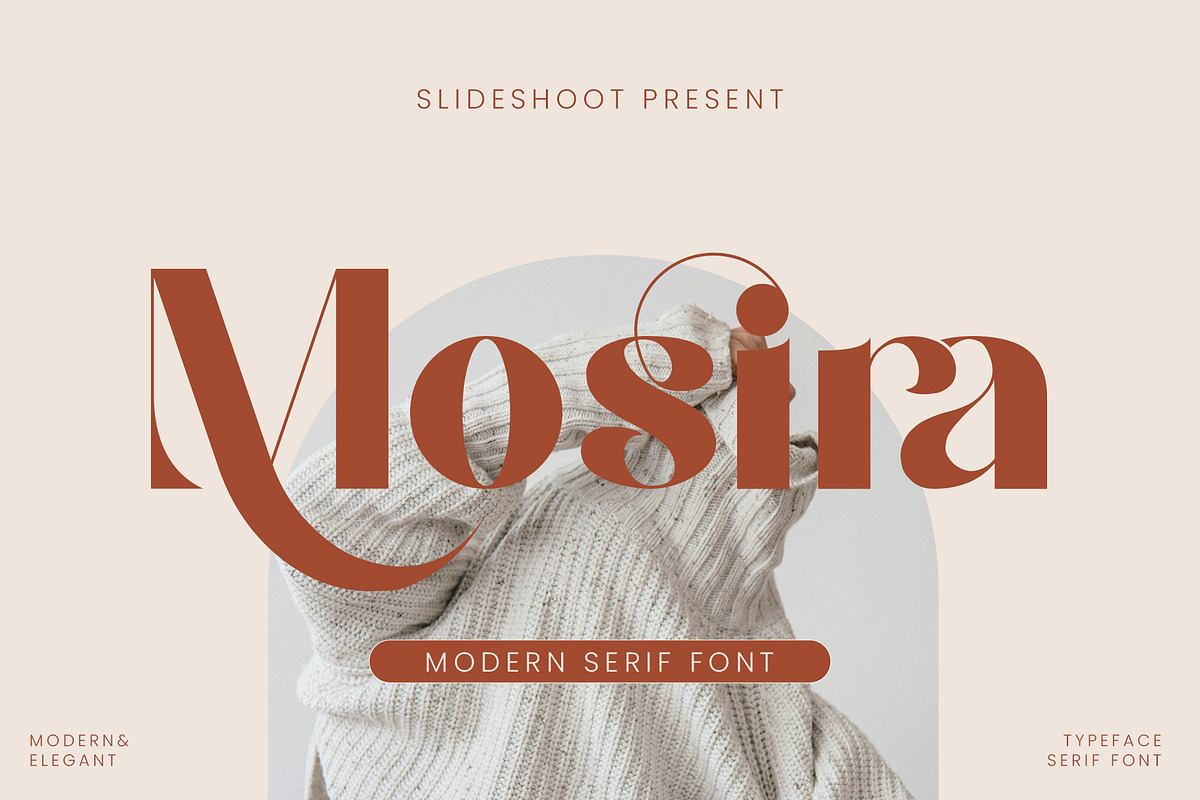
Embrace elegance and modernity with Mosira Serif Font Free Download — a refined typeface that blends classic serif tradition with contemporary sophistication. Perfect for branding, editorial layouts, product packaging, and luxury-themed designs, Mosira brings grace and structure to any creative project.
With high-contrast strokes, smooth curves, and sharp serifs, Mosira offers a timeless appeal while staying fresh and stylish. It includes uppercase and lowercase letters, numerals, punctuation, and multilingual support—ideal for testing in both print and digital layouts.
Whether you're crafting a magazine spread or a premium logo, this font delivers polished professionalism. For any commercial applications, a proper license is required. Download Mosira Serif Font Free Download today and elevate your design work with modern elegance.